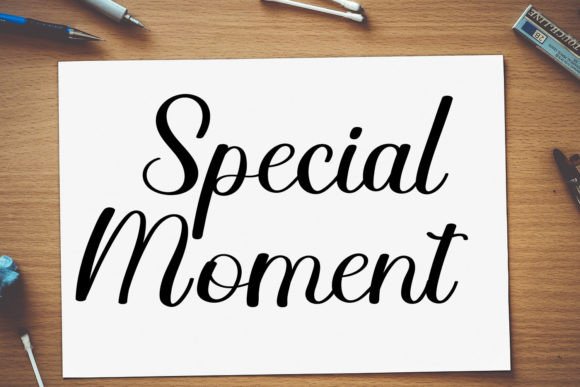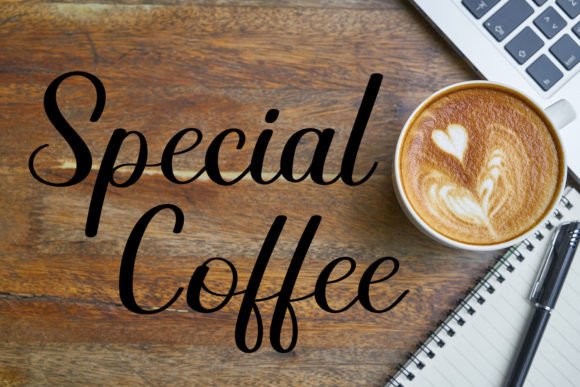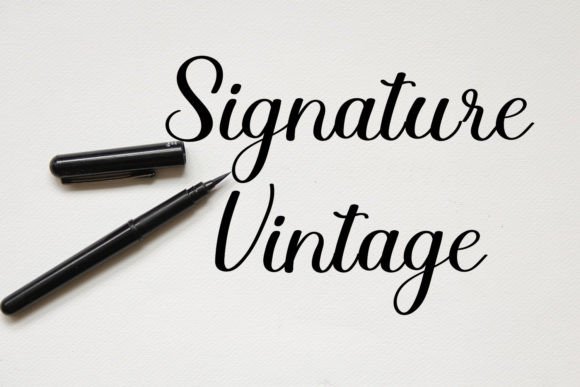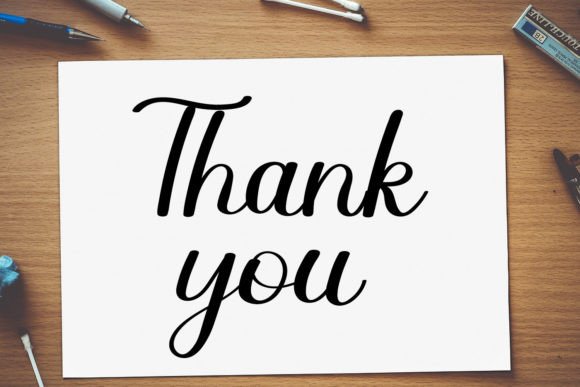
The Brilliant Font: A Designer’s New Best Friend
I’ll never forget the frustration I felt while working on a project for a high-end client. I had spent hours crafting the perfect design, but something was missing – a font that would elevate the entire piece and make it shine. As I scrolled through font after font, I couldn’t help but feel like I was stuck in a rut. That was until I stumbled upon the Brilliant font. ✨
Brilliant is an exquisite handwritten font, masterfully designed to become a true favorite. It maintains its classy calligraphic influences while feeling contemporary and fresh. In this article, I’ll share my love for Brilliant, its features, and how to make the most of it in your designs.
An Honest Review of Brilliant
• ✨ Elegant and sophisticated, perfect for high-end designs
• 💫 Beautifully crafted with a unique character set
• 🎨 Highly versatile, suitable for a wide range of design projects
While Brilliant is an amazing font, there are a few things to keep in mind: 🤔
• ⚠️ Some characters may require manual kerning for optimal results
• ⚠️ Limited availability of certain OpenType features in certain software
The Story Behind Brilliant
Brilliant was designed with the goal of creating a font that would be both elegant and contemporary. The designer, inspired by traditional calligraphy, aimed to craft a font that would feel fresh and modern, while still maintaining a sense of sophistication. The result is a font that is perfect for designers, crafters, and creative hobbyists looking to elevate their projects.
What makes Brilliant unique? Brilliant’s unique blend of classic calligraphy and modern design elements sets it apart from other fonts.
Is Brilliant difficult to read? No, Brilliant is highly legible, even at small font sizes, making it perfect for body text or headings.